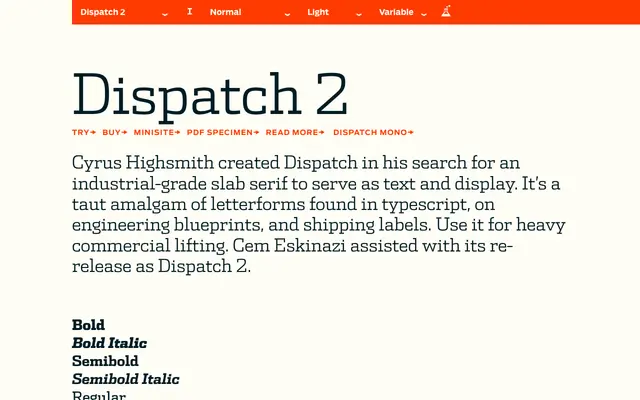
Dispatch 2
Occupant Fonts · Cyrus Highsmith · 2023
A wide-ranging industrial slab serif by Cyrus Highsmith, drawn from typescript, engineering blueprints and shipping labels for heavy-duty text and display use.
Designed by Cyrus Highsmith and re-released as Dispatch 2 with assistance from Cem Eskinazi, this slab serif takes its cues from the blunt, functional lettering found on engineering drawings, typescript and freight labels. Fifty styles span five widths from Compressed to Wide, each with five weights from Extra Light to Bold and matching italics, covering Latin Extended, Cyrillic and Greek. The result is a workhorse family with enough typographic range to move between text settings and large-scale display work without losing its industrial character.
Dispatch 2 is a slab serif drawing from typescript, engineering blueprints and shipping labels, giving it a utilitarian, industrial character suited to both text and display use.